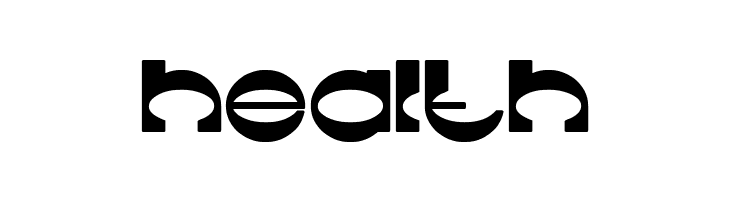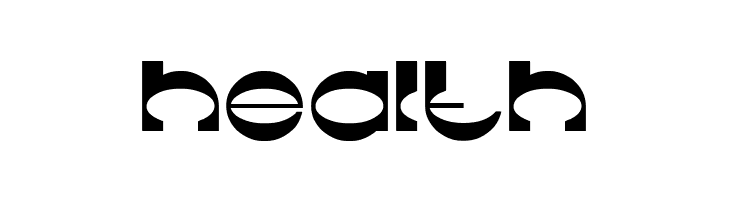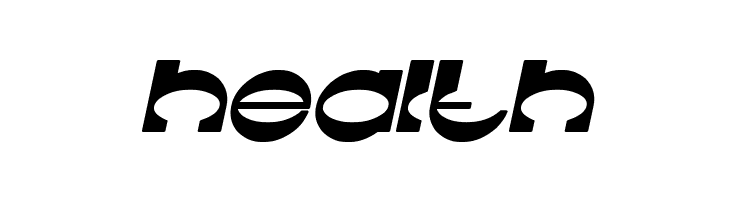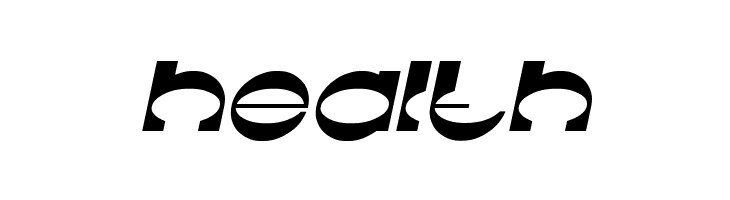
• The Machine Gun
A bold, futuristic font with geometric and industrial design elements.
• The Machine Gun Bold
• The Machine Gun Bold Italic
A bold, italicized font with a futuristic and mechanical design.
• The Machine Gun Italic
A bold, futuristic italic font with sharp angles and geometric shapes.